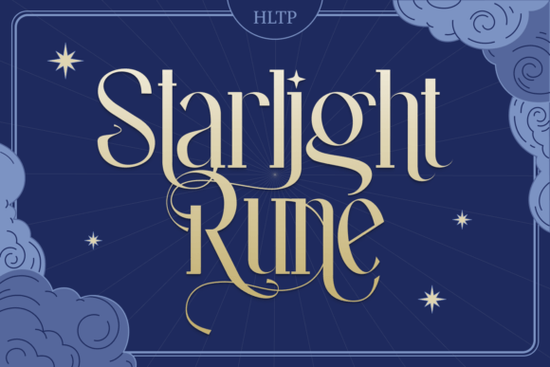
If you're looking for a font that feels like it belongs in a fantasy story or a magical invitation, Starlight Rune Font delivers exactly that. It’s not just another decorative typeface it’s designed with care to bring a sense of wonder to your creative work. Whether you’re making a birthday card for a fantasy-loving friend or designing a cover for a self-published novel, this font adds a unique touch that stands out.
What makes Starlight Rune Font special?
Starlight Rune combines elegant curves with subtle, hand-crafted details that give it a timeless, almost ancient feel. The letterforms are balanced and readable at larger sizes perfect for posters, banners, and book covers. What really sets it apart are the alternate glyphs included in the set. These let you mix and match different versions of letters, giving your design more personality and variety without needing extra tools.
The font works especially well when paired with soft backgrounds or dark textures, which helps the delicate strokes pop. You’ll find it ideal for projects where mood and atmosphere matter like wedding invites with a mystical theme, themed merchandise, or even digital art pieces.
How can I use Starlight Rune in my projects?
- Invitations: Use it for fairy tale weddings, themed parties, or magical birthday celebrations.
- Book Covers: Great for fantasy novels, poetry collections, or indie publications with a dreamy tone.
- Merchandise: Perfect for T-shirts, mugs, or tote bags with whimsical designs.
You don’t need advanced design skills to make something beautiful with this font. Just choose a layout you like, apply the text, and tweak spacing or size until it feels right. The regular and alternate glyphs mean you can create small variations without starting from scratch.
Where does Starlight Rune fit in my design toolkit?
Starlight Rune sits in a different space altogether it’s meant for storytelling and mood. It’s not about minimalism or efficiency; it’s about emotion. That makes it a strong addition when you want your project to feel personal or imaginative.
For best results, use it at larger sizes (18pt or above) to appreciate the fine details. Avoid using it for long blocks of text this is a display font, not a body text option. But when used as a headline or accent, it shines.
Final thoughts: Is Starlight Rune worth trying?
If you enjoy creating designs with emotional depth or a fantastical vibe, yes it’s worth adding to your collection. It’s not a one-size-fits-all font, but for the right project, it’s a standout choice. Plus, since it comes with alternate glyphs, you get more flexibility than many similar fonts.
Remember: great design isn’t always about complexity. Sometimes, it’s about choosing the right tool for the moment. If your idea needs magic, mystery, or a little enchantment, Starlight Rune is ready to help.